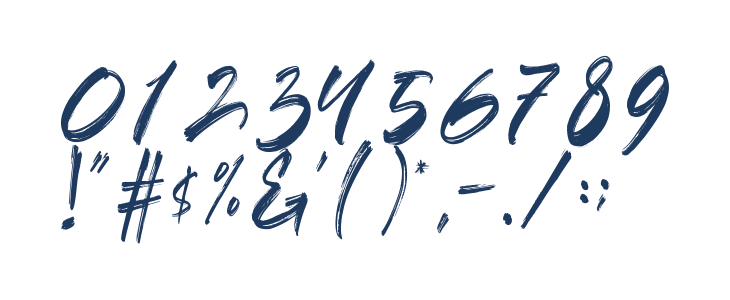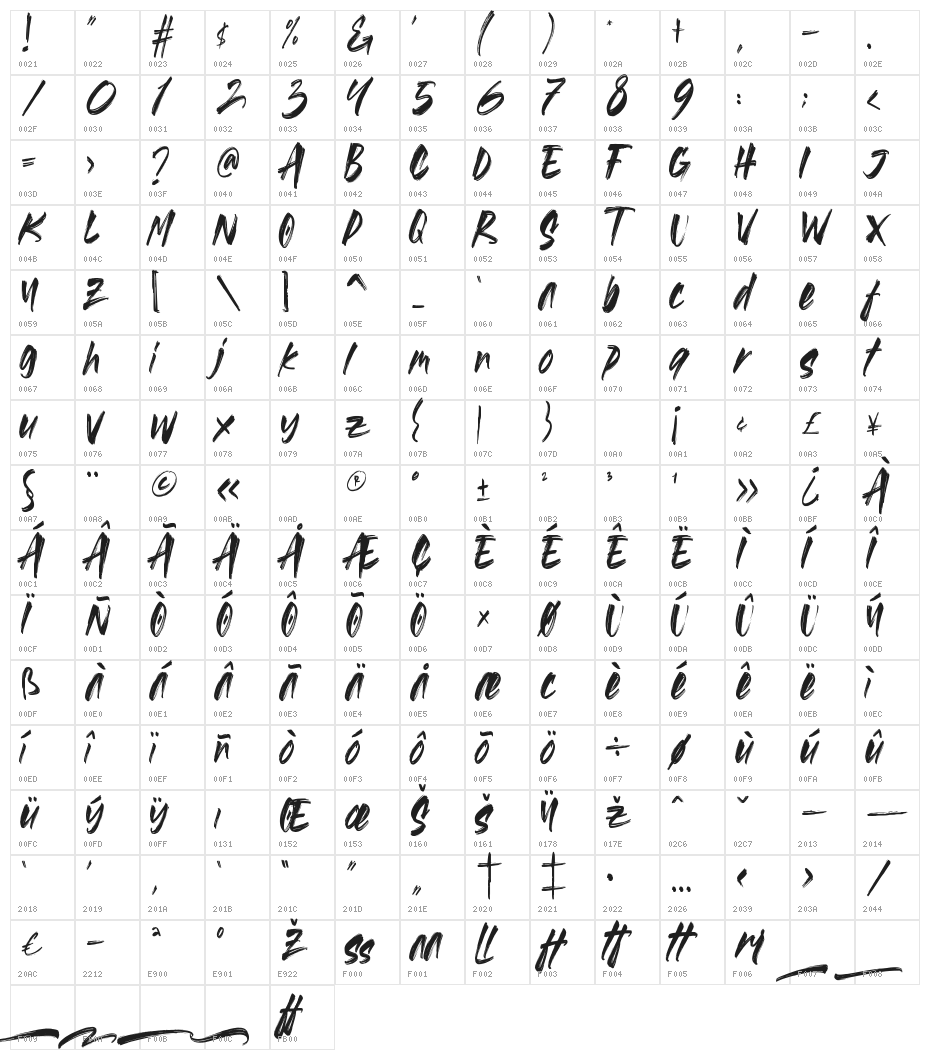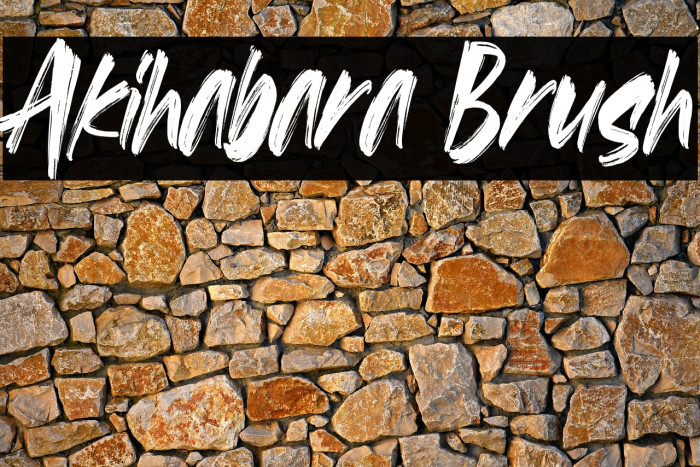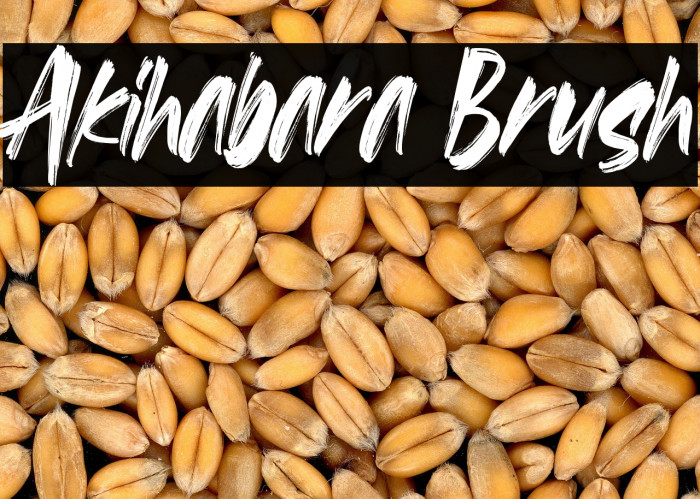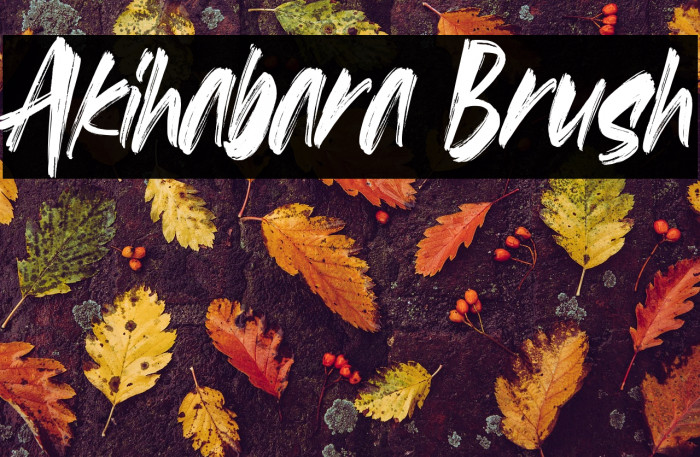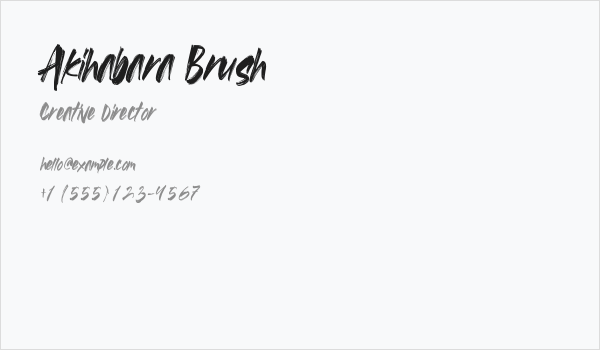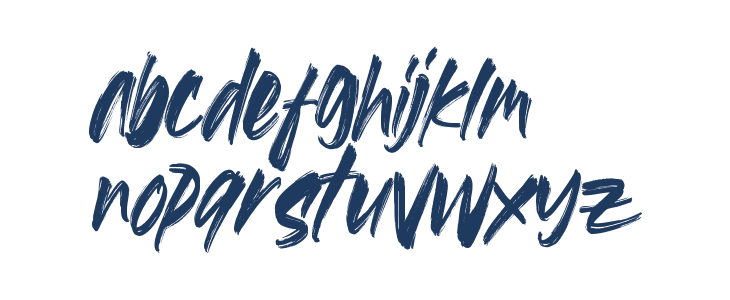
Akihabara Brush Font
Akihabara Brush Description
This font exudes a dynamic and energetic style, characterized by its bold, brush-like strokes that convey a sense of movement and spontaneity. The letters are crafted with a hand-painted appearance, featuring irregular edges and varying thicknesses that add to its artistic flair. The uppercase and lowercase letters maintain a consistent style, with the uppercase being slightly more pronounced. Numbers and special characters are equally expressive, maintaining the same brushstroke aesthetic. This font is ideal for projects that require a bold, artistic touch, such as posters, branding, and creative designs.
| Proposed Projects | Ideal for posters, branding, artistic designs, and creative projects. |